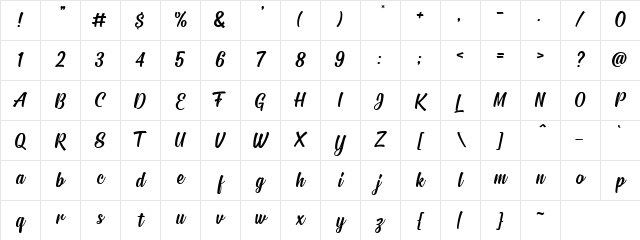
Signatra DEMO Regular
Foundry: Twicolabs Fontdation
Designer: Twicolabs Fontdation
Design Context for Signatra DEMO
Signatra DEMO is a composed and adaptable typeface that performs quietly and consistently across a wide range of design contexts.